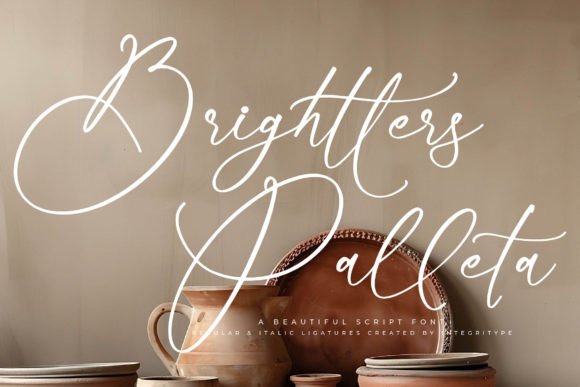
The Elegant Charm of Brightters Palleta Font
Have you ever been in the middle of designing a project, and suddenly, you’re stuck on finding the perfect font? I recall a recent experience where I was working on an elegant invitation for a client’s wedding. The design was almost complete, but something was missing – a font that could capture the sophistication and romance of the occasion. That’s when I stumbled upon Brightters Palleta, a beautiful script font that instantly elevated my design.
An Honest Review of Brightters Palleta
• ✨ Elegant and sophisticated design, perfect for special occasions
• 💫 Beautifully crafted with intricate details, giving it a luxurious feel
• 🎉 Extensive range of OpenType features, glyphs, and stylistic alternates
While Brightters Palleta is an exceptional font, there are a few minor quirks to be aware of:
• ⚠️ Some characters may require manual kerning for optimal spacing
• 🤔 Limited availability of bold or heavy weights, which might limit its use in certain designs
Exploring OpenType Features, Glyphs, and Stylistic Alternates
Brightters Palleta offers a wide range of OpenType features, glyphs, and stylistic alternates. To access these:
The Story Behind Brightters Palleta
Brightters Palleta was designed with the intention of creating a font that exudes elegance and sophistication. Inspired by classic calligraphy, the font’s creator aimed to craft a typeface that would be both beautiful and versatile. The result is a font that’s perfect for designing invitations, announcements, and event materials that require a touch of luxury.
Font Name Brightters Palleta Font
Author integritypestudio
Q: What type of projects is Brightters Palleta best suited for?
A: Brightters Palleta is ideal for designing elegant invitations, announcements, and event materials, such as galas, parties, and celebrations.
Q: Is Brightters Palleta available in multiple weights?
A: Brightters Palleta offers a range of weights, but the availability of bold or heavy weights might be limited.